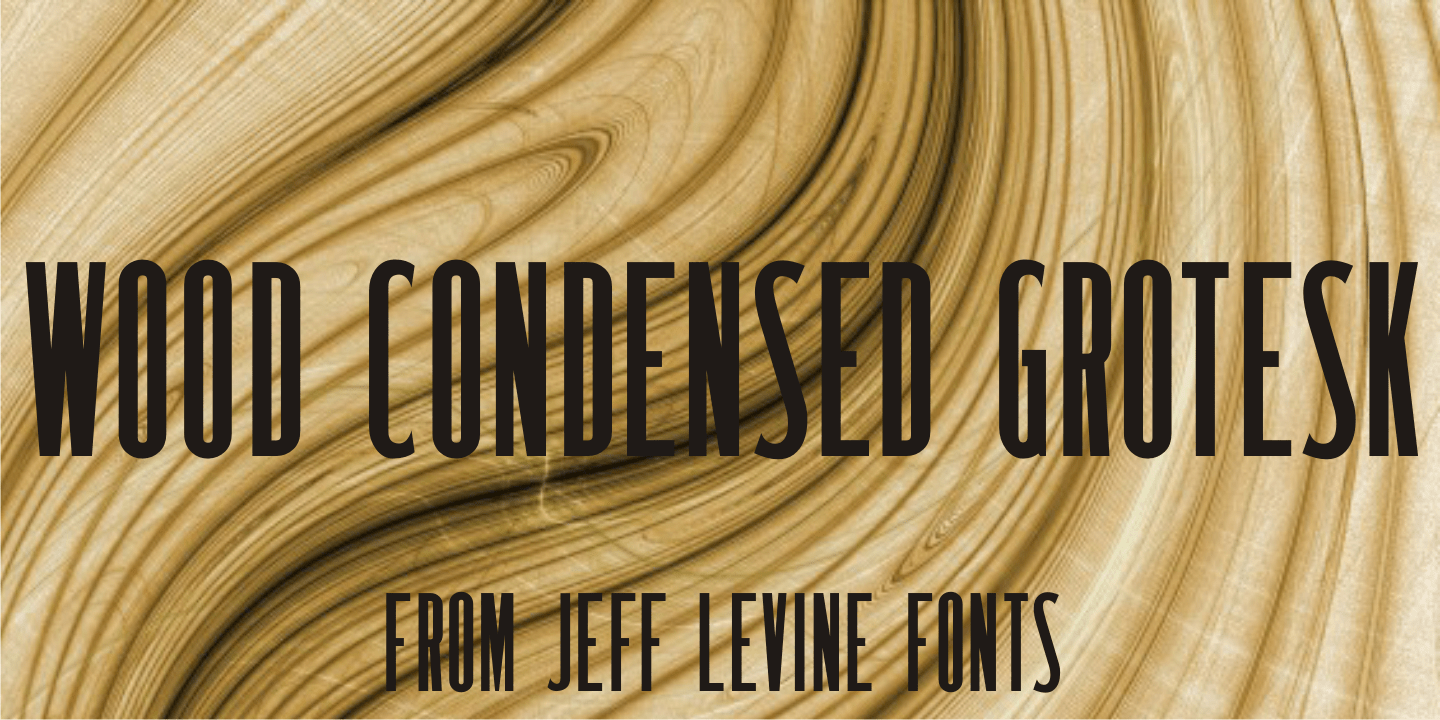
Wood Condensed Grotesk
Wood Condensed Grotesk JNL is a more condensed version of the type style found in Wood Type Grotesk JNL.
The font was a popular sans used for large posters or broadsheets as well as newspaper titles where more copy needed to be fit into limited space.
Wood Condensed Grotesk JNL Regular by Jeff Levine Fonts